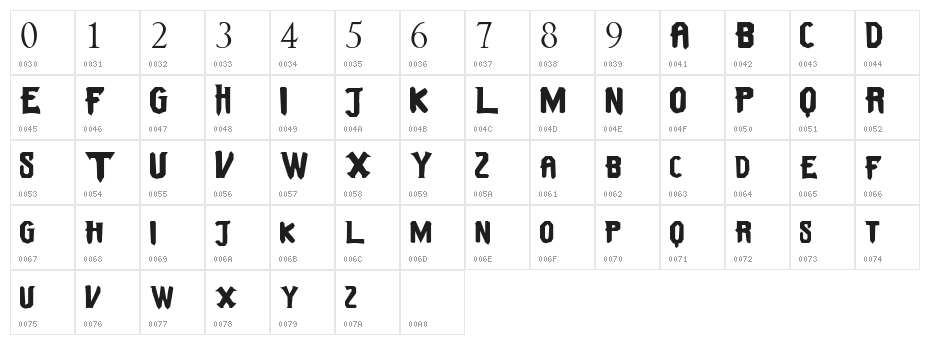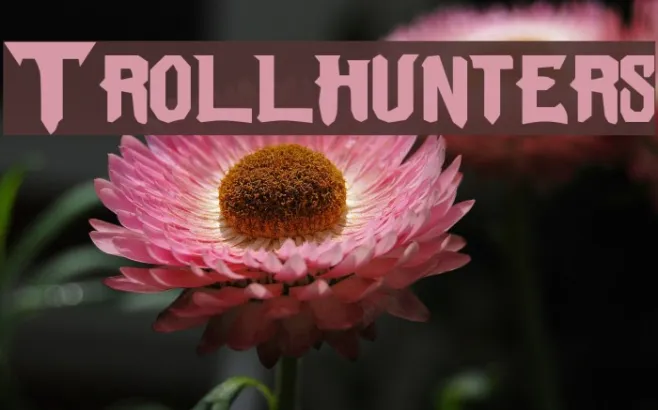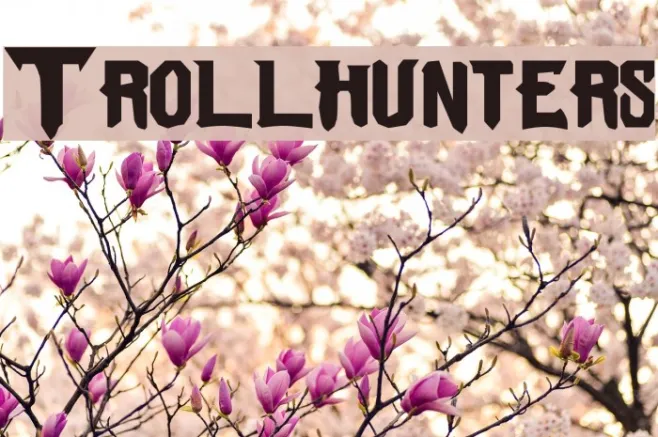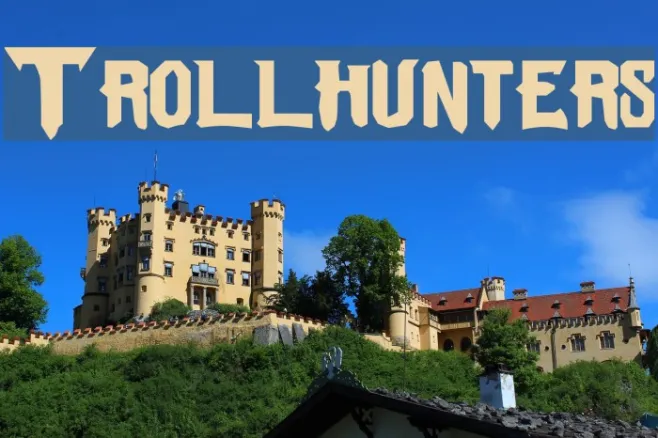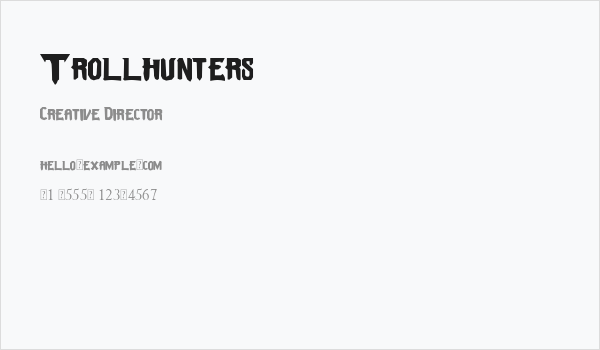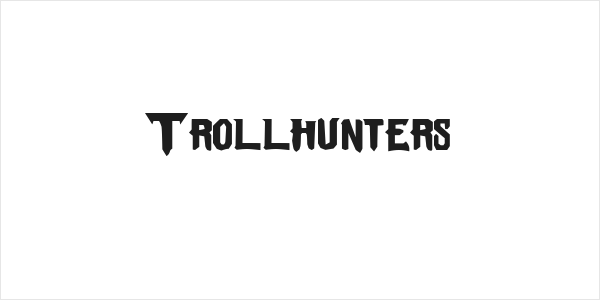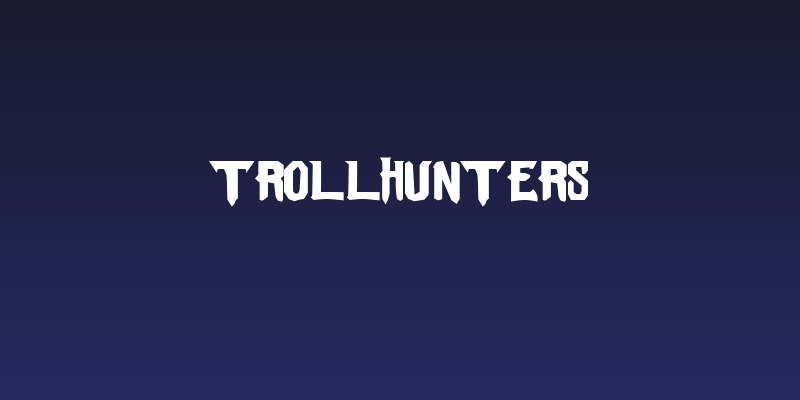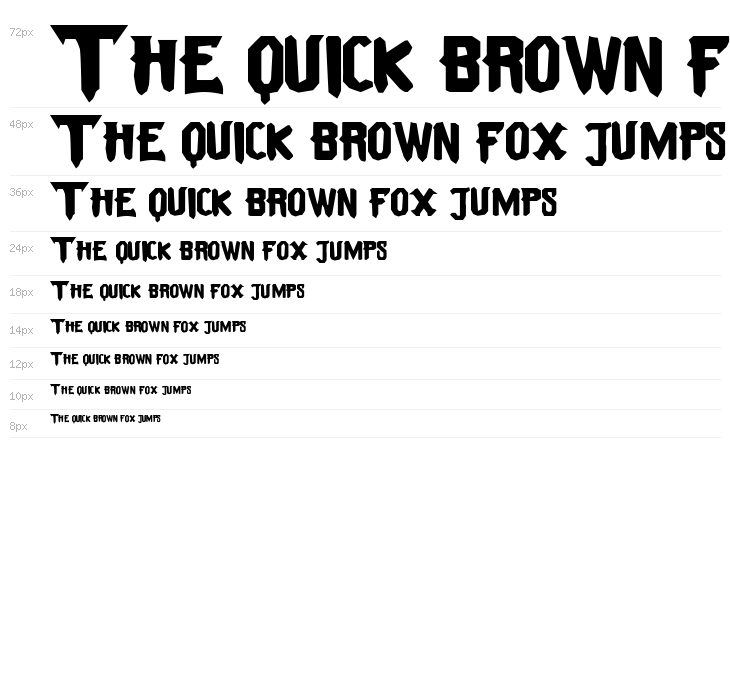
Trollhunters Font
Trollhunters Description
This font exhibits a bold, angular design with a distinct medieval or fantasy aesthetic. The uppercase letters are characterized by sharp edges and a blocky appearance, reminiscent of ancient runes or inscriptions. The lowercase letters maintain this theme, offering a cohesive look throughout. The numerals are more traditional in style, providing a clear contrast to the decorative letters. This font is ideal for projects that require a strong, impactful presence, such as titles for fantasy novels, game logos, or themed event posters. Its unique style captures attention and conveys a sense of mystery and adventure.
| Proposed Projects | Fantasy novels, game logos, themed event posters. |